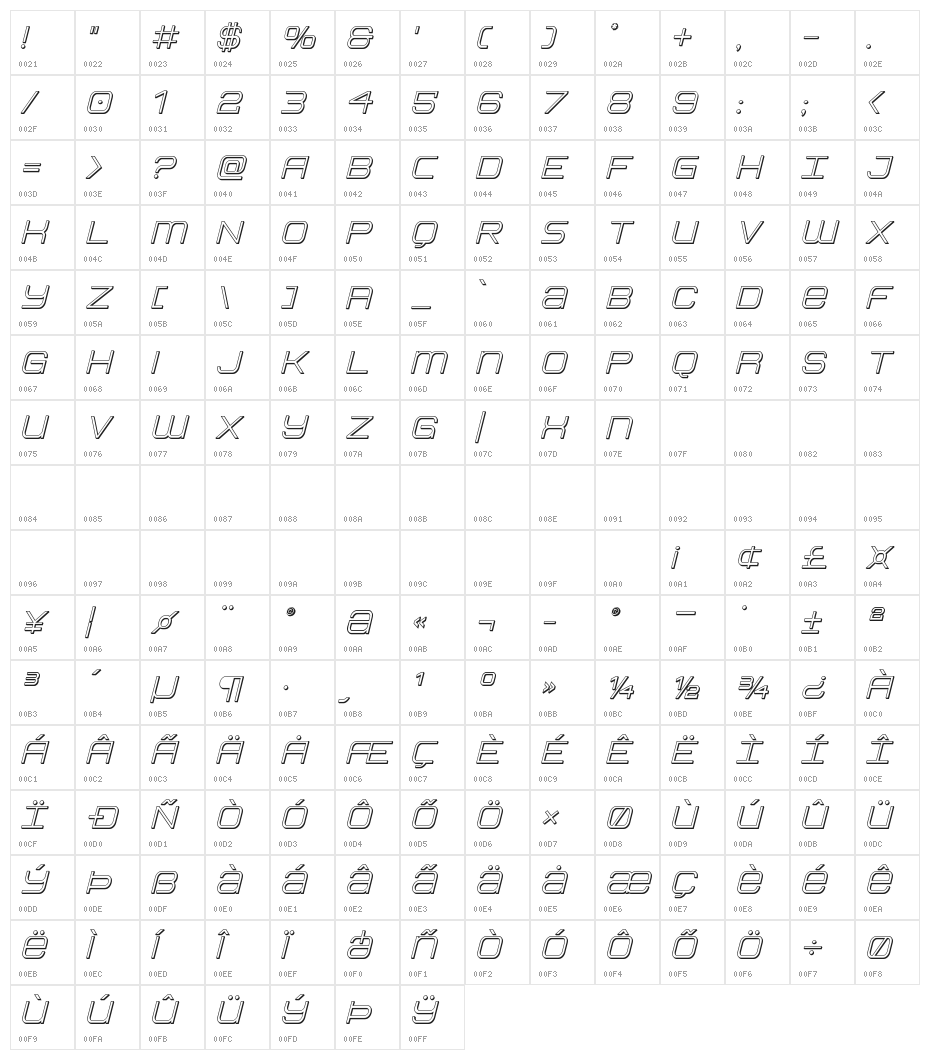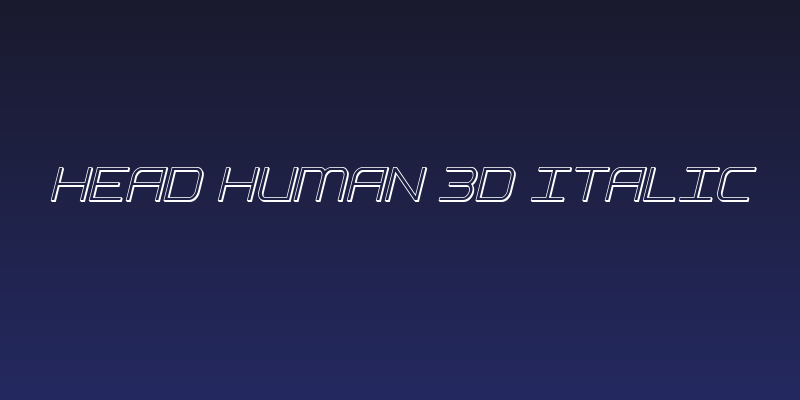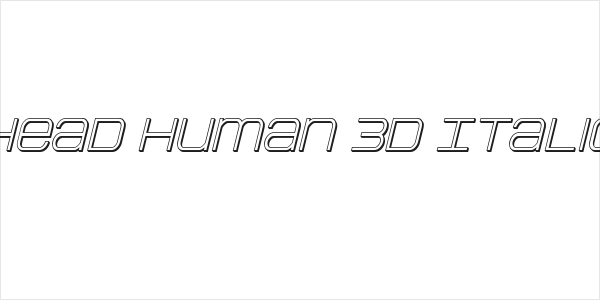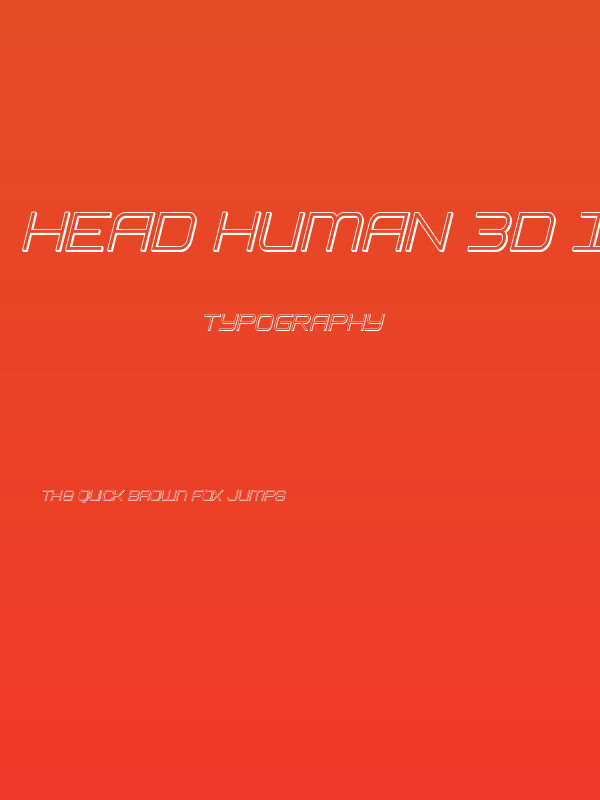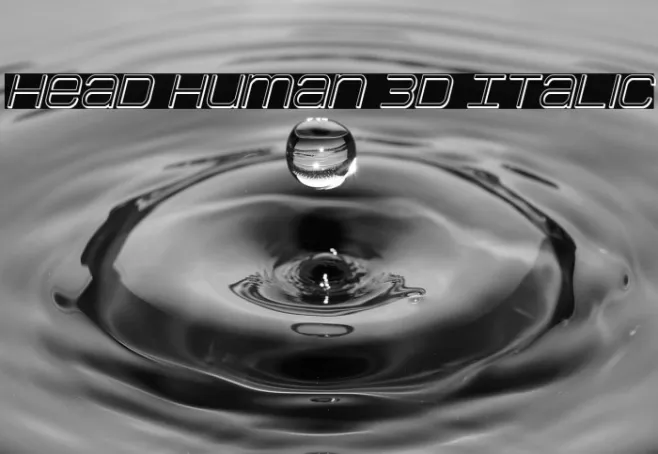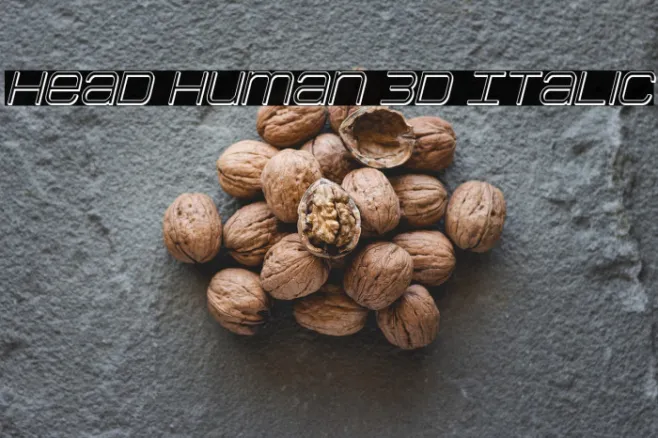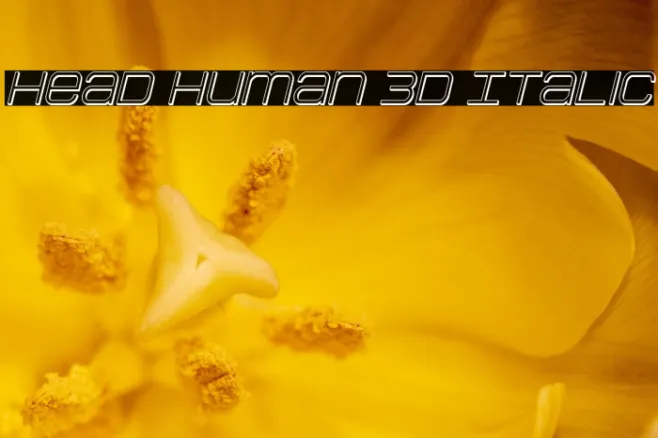
Head Human 3D Italic Font
Head Human 3D Italic Description
This font features a futuristic and dynamic design with a 3D effect, characterized by its italicized, outlined letters. The uppercase and lowercase letters maintain a consistent style, with clean lines and a geometric structure. The numbers and special characters follow the same aesthetic, providing a cohesive look across all glyphs. The font's unique style makes it suitable for modern and tech-oriented projects, offering a sense of movement and innovation.
| Proposed Projects | Ideal for tech branding, sci-fi posters, video game titles, and modern advertising. |